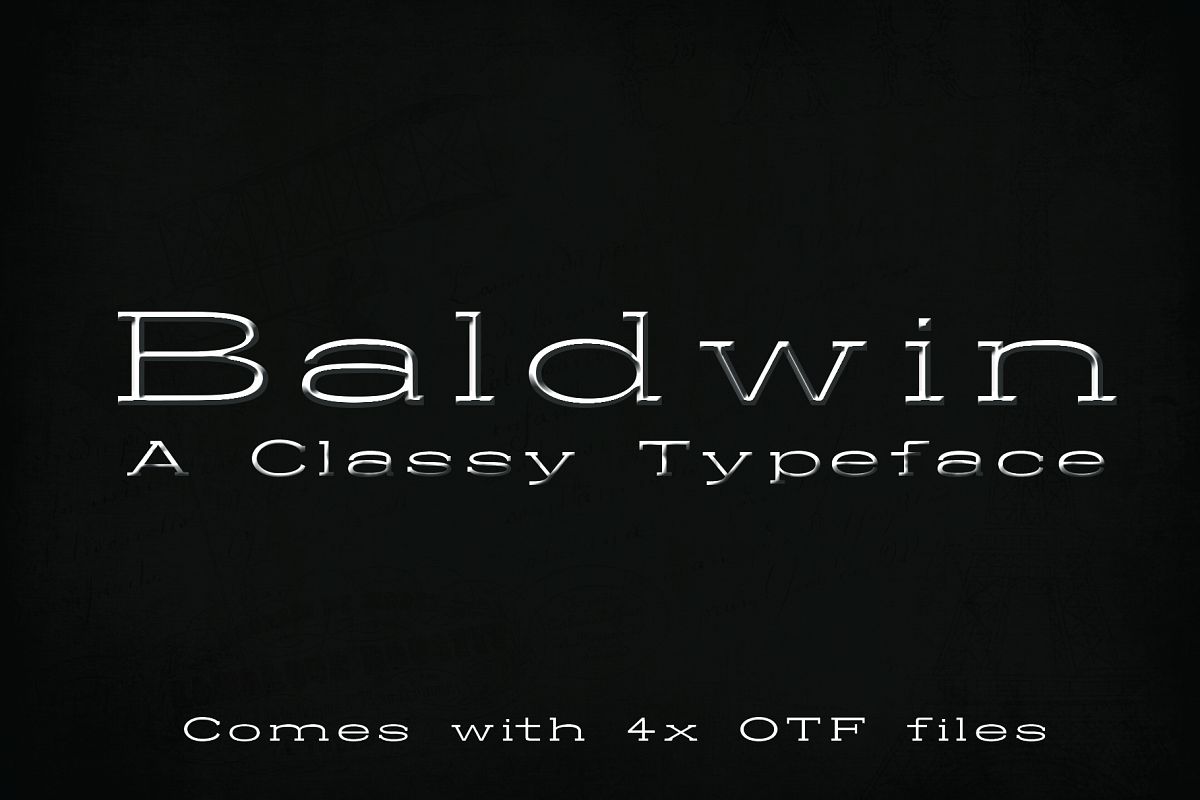
BALDWIN - A classy typeface
Baldwin regular
Baldwin regular-italic
Baldwin light
Baldwin light-italic
A simple yet elegant font. It's style makes it perfect for use in your design projects.